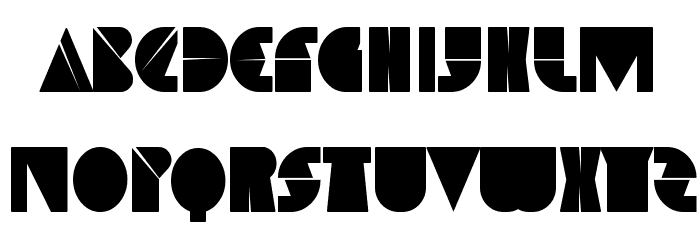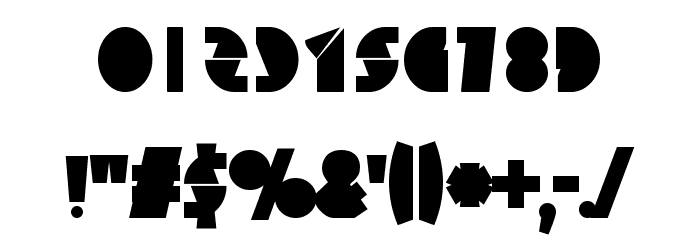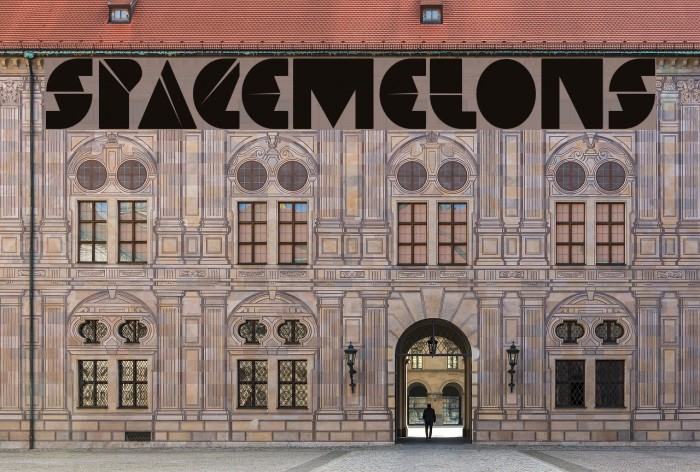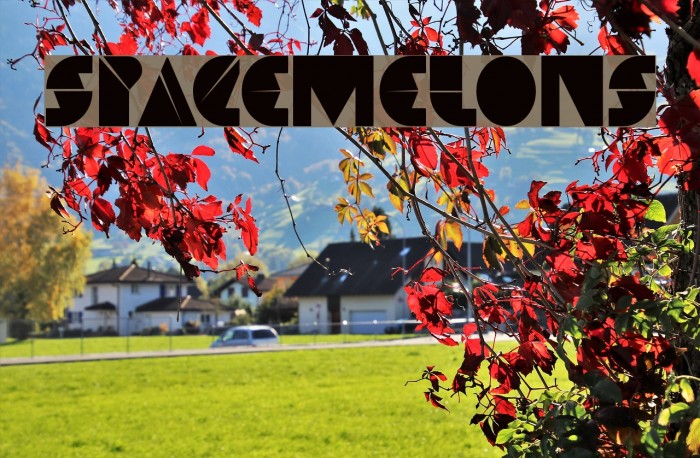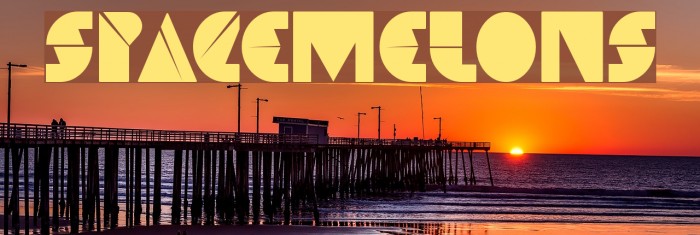
SpaceMelons Font
This font features a bold and futuristic design with geometric shapes forming each character. The letters are constructed with a combination of sharp angles and smooth curves, creating a dynamic and eye-catching appearance. The uppercase and lowercase letters maintain a consistent style, while the numbers and special characters integrate seamlessly with the overall aesthetic. The font's unique structure makes it ideal for projects that require a modern and innovative look, such as technology branding, sci-fi themed designs, or creative advertising campaigns. Its bold weight and distinct style ensure that it stands out in any application.
A bold, futuristic font with geometric shapes and a dynamic design.
- Proposed Projects: Ideal for technology branding, sci-fi themes, creative advertising, and innovative design projects.